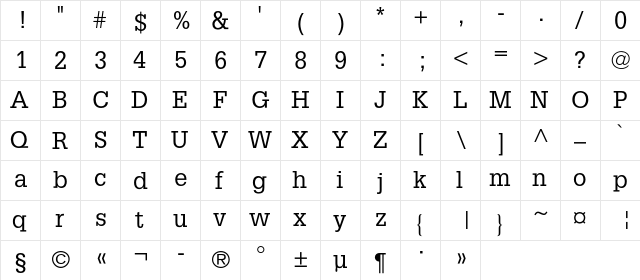
AGGloriaC Regular
Design Context for AGGloriaC Typeface
AGGloriaC takes a measured approach to typography — its balanced proportions and neutral character make it a reliable workhorse for both digital and print work.